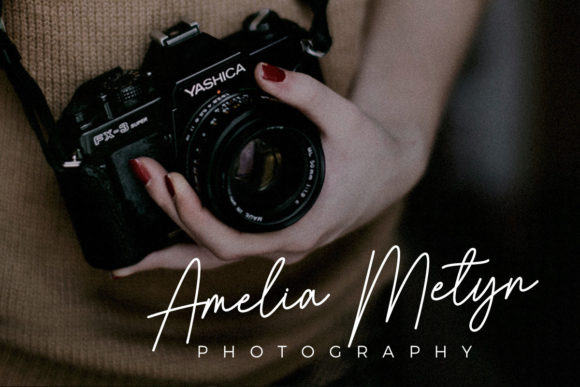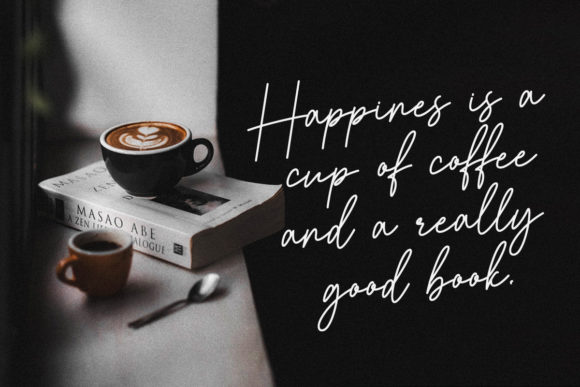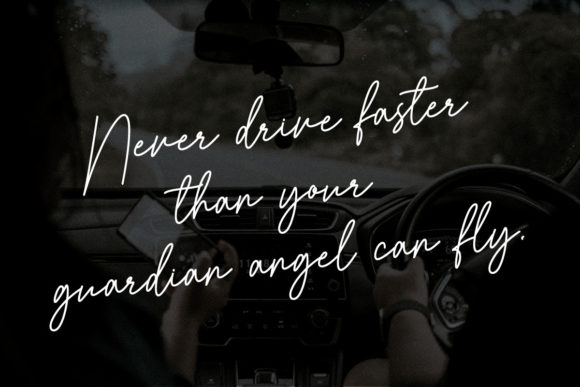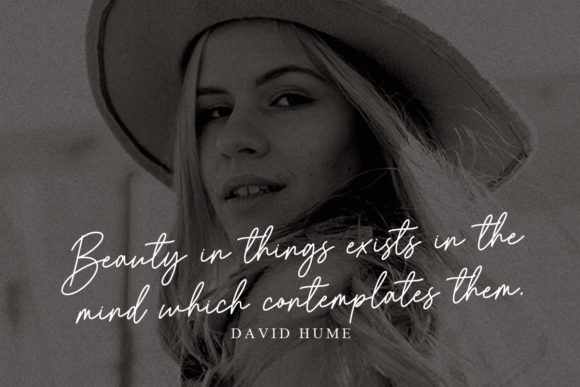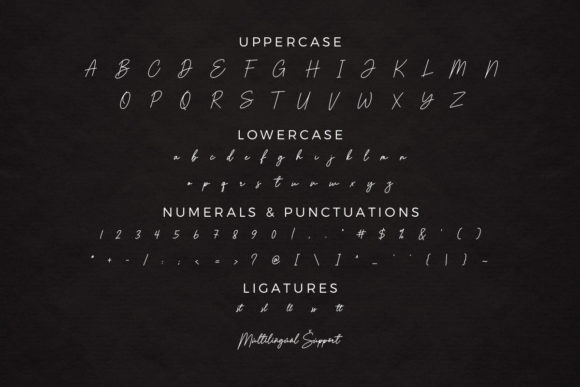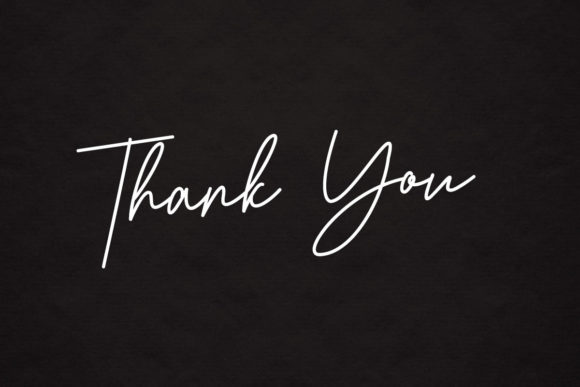
Have you ever found yourself staring at a blank page, struggling to find the right words to express your idea? You’re not alone. As creatives, we’ve all been there. But what if you had a secret tool to help you break through the creative block and bring your vision to life? Enter Brilanys Signature Font, a relaxed, casual, and adaptable script font that’s about to become your new best friend.
Designed to enhance any creation, Brilanys Signature Font is the perfect addition to your font library. Whether you’re writing a blog post, designing a logo, or crafting a social media post, this font will help you convey your message with style and ease. And the best part? It’s incredibly versatile, making it a valuable asset for designers of all levels.
Brilanys Signature Font Key Features
- Unique Characteristics: The font features a unique blend of elegant and modern elements, with subtle flair and flair-like ornaments.
Brilanys Signature Font Review
Overall, I’d say Brilanys Signature Font is a solid addition to any designer’s toolkit. Here’s what works well: ✨ The font has a unique, handwritten feel that’s perfect for adding a touch of personality to your designs. ✨ The varied line widths and irregular letterforms give it a dynamic, hand-drawn look that’s hard to replicate with other fonts. ✨ The font is also highly legible, making it suitable for a range of applications, from body text to headlines.
However, there are a few limitations to consider: ⚠️ The font is not as comprehensive as some other fonts on the market, with limited character sets and no Cyrillic or Greek support. ⚠️ The font also lacks a bold weight, which can make it difficult to use in situations where a clear, bold headline is needed.
In terms of overall impression, I’d say Brilanys Signature Font is a great choice for designers who want to add a touch of whimsy and personality to their work. While it may not be the most comprehensive font, its unique look and feel make it a valuable addition to any design library.
Here are some key pros and cons to consider:
- Unique, handwritten feel
- Dynamic, hand-drawn look
- Highly legible
- Limited character sets
- No Cyrillic or Greek support
- No bold weight
Brilanys Signature Font: A Practical Application Guide
Getting the Most Out of Brilanys Signature Font
To get the most out of Brilanys Signature Font, use it for headings and titles to add a touch of elegance and sophistication. This font is ideal for creating a consistent brand identity and adding a personal touch to your designs.
Brilanys Signature Font is commonly used for:
– Business cards and marketing materials
Alternatives to Brilanys Signature Font
Lato is a modern sans-serif font that is highly legible and versatile. It is perfect for use in headings and body text where a clean and professional look is desired. Lato is a free and open-source font, making it a great alternative to Brilanys Signature Font for designers on a budget. In terms of style, Lato is more minimalist and geometric compared to Brilanys Signature Font, which has a more luxurious feel.
Montserrat is a sans-serif font designed for urban environments. It is highly legible in small sizes and has a strong, geometric feel. Montserrat is a great choice for designers who want a font that is both modern and versatile. Compared to Brilanys Signature Font, Montserrat is more modern and has a stronger, more urban feel.
Merriweather is a classic serif font that is perfect for use in body text and headings where a traditional, elegant look is desired. It is highly legible and has a timeless feel that works well in a variety of contexts. Merriweather is a great alternative to Brilanys Signature Font for designers who want a more traditional, sophisticated look.